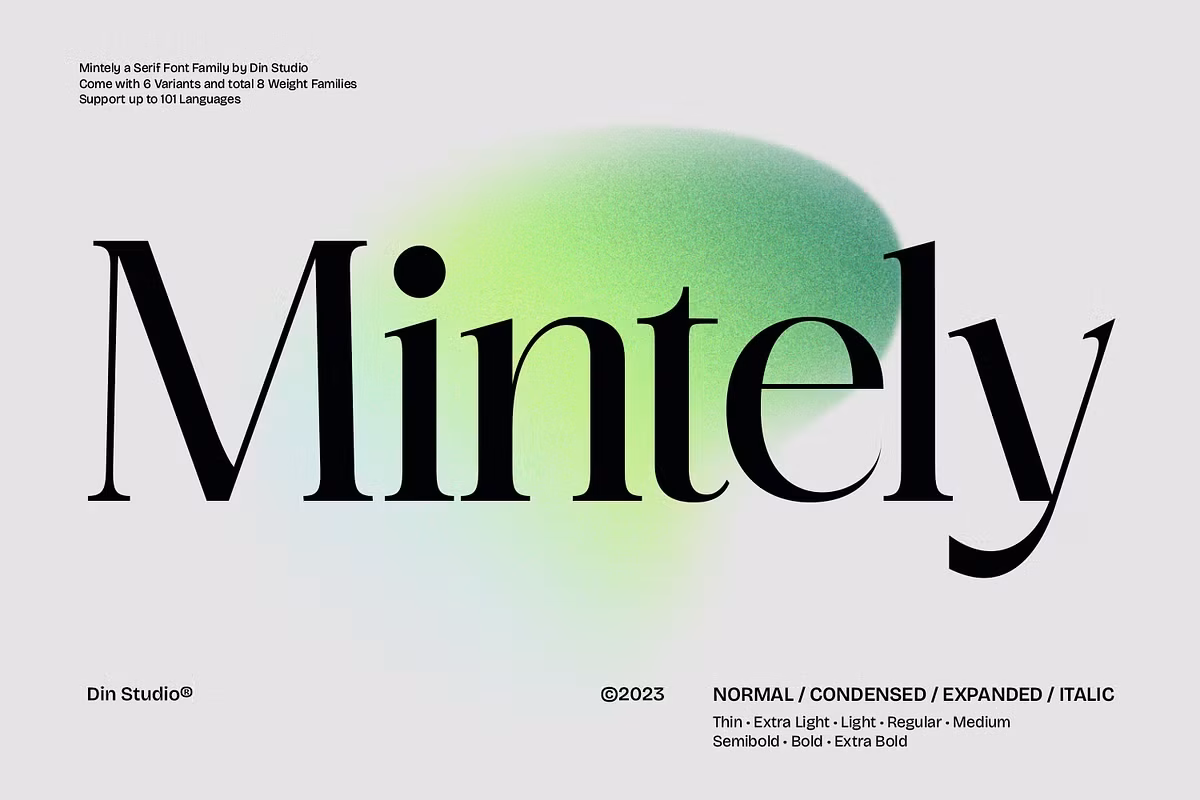
Mintely Font Free Download is a clean, modern typeface with elegant curves and sharp lines, perfect for contemporary designs. Its versatility makes it ideal for a wide range of projects, including branding, editorial design, website headers, packaging, and logos.
The font is stylish yet highly readable, making it suitable for both professional and creative designs. Whether you're designing a corporate brand identity or a trendy product label, Mintely adds sophistication and clarity to your typography.